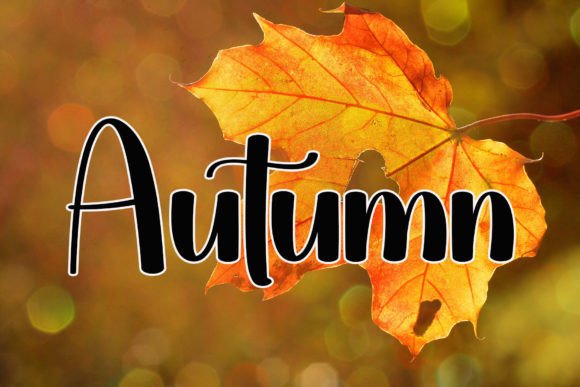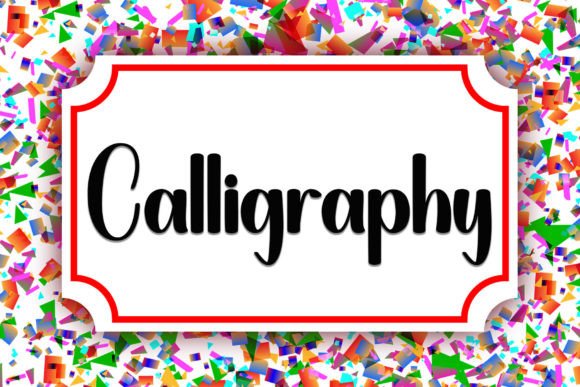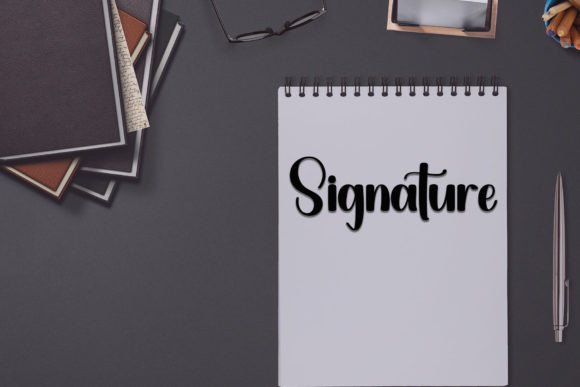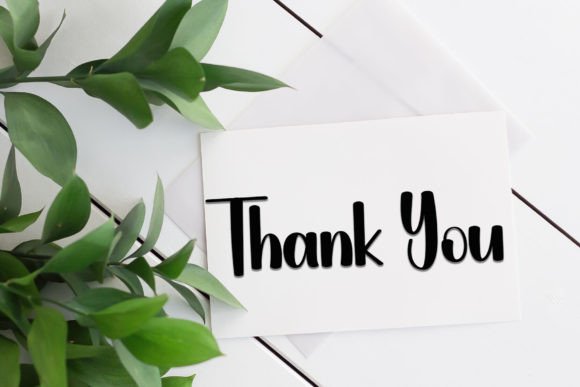
Introducing Fall Font: The Perfect Addition to Your Design Arsenal
Are you on the hunt for a font that exudes elegance and sophistication? Look no further than Fall Font, a stunning handwritten font that is sure to capture your heart. With its unique blend of refinement and playfulness, Fall Font is the perfect choice for designers and crafters looking to add a touch of magic to their projects.
The Story Behind Fall Font
Fall Font is a meticulously crafted font that boasts an elegant touch, making it perfect for a wide range of design applications. Its creator had a vision of developing a font that would not only be beautiful but also incredibly versatile. The result is a font that is both timeless and distinctive, with a charm that will leave you and your audience spellbound.
What Makes Fall Font So Special?
So, what sets Fall Font apart from other fonts out there? Here are just a few of its standout features:
- Elegant and Refined: Fall Font’s elegant design makes it perfect for projects that require a touch of sophistication. Whether you’re working on a luxury brand campaign or a wedding invitation, Fall Font is sure to impress.
- Handwritten with Love: The font’s handwritten nature gives it a personal and organic feel that’s hard to replicate with digital fonts. This makes it perfect for projects that require a human touch.
- Distinctive and Timeless: Fall Font’s unique style ensures that your designs will stand out from the crowd. Plus, its timeless quality means that it won’t go out of style anytime soon.
- Versatile: Whether you’re working on a logo, brochure, or social media graphics, Fall Font can be used in a wide range of design applications.
How to Use Fall Font in Your Designs
Now that you’re excited about Fall Font, let’s explore some ways you can use it in your designs:
- Wedding Invitations: Add a touch of romance to your wedding invitations with Fall Font. Its elegant design makes it perfect for formal and informal wedding stationery.
- Branding and Logo Design: Use Fall Font to create a unique and memorable logo for your brand. Its distinctive style ensures that your brand will stand out from the competition.
- Social Media Graphics: Add some personality to your social media graphics with Fall Font. Its playful and elegant design makes it perfect for creating engaging social media content.
- Packaging Design: Use Fall Font to add a touch of sophistication to your packaging design. Its refined style makes it perfect for luxury brands and high-end products.
Tips for Getting the Most Out of Fall Font
To ensure that you get the most out of Fall Font, here are some tips to keep in mind:
- Experiment with Different Sizes: Fall Font looks great in a variety of sizes, so don’t be afraid to experiment with different font sizes to find the one that works best for your design.
- Pair it with Other Fonts: Fall Font pairs well with a range of other fonts, so try combining it with different fonts to create a unique and interesting design.
- Use it in Combination with Images: Fall Font looks great when used in combination with images, so try incorporating it into your design alongside high-quality images.